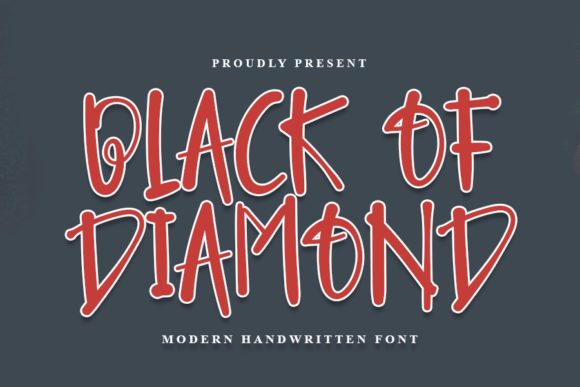
The Ultimate Guide to Black Of Diamond Font: Elevate Your Designs with a Fun Handwritten Style
Have you ever been in the middle of a design project, and suddenly, you’re stuck on finding the perfect font? I recall a recent experience where a client asked for a fun, handwritten font that would make their brand stand out. After scouring the internet, I stumbled upon the Black Of Diamond font, and it instantly became my go-to choice. In this article, I’ll share my journey with this fantastic font, its features, and how to make the most of it in various design platforms.
A Personal Encounter with Black Of Diamond
Working on a project for a children’s toy brand, I needed a font that was playful, yet elegant. The client was looking for a design that would appeal to both kids and parents. That’s when I discovered Black Of Diamond. This fun handwritten font has been a game-changer for my designs, and I’m excited to share its potential with you.
An Honest Review of Black Of Diamond
- ✨ Unique and Playful Style: Black Of Diamond offers a distinctive, cursive look that adds a touch of personality to any design.
- 💡 OpenType Features: Black Of Diamond supports OpenType features, allowing for advanced typographic control and customization.
While Black Of Diamond is an excellent font, there are a few things to keep in mind:
- 🤔 Limited Character Set: Some users might find the character set a bit limited for extensive text projects.
- ⚠️ Legibility at Small Sizes: Like many script fonts, Black Of Diamond may lose legibility when used at very small sizes.
The Story Behind Black Of Diamond
While the origins of Black Of Diamond are not well-documented, it’s clear that the designer aimed to create a fun, versatile font for creative projects. The unique blend of elegance and playfulness makes it an excellent choice for designers looking to add a personal touch to their work.
| Font Name | Black of Diamond Font |
| Author | NYA Letter |
Q: What type of projects is Black Of Diamond best suited for?
Black Of Diamond is perfect for creative projects, such as branding, invitations, posters, and social media graphics, where a playful yet elegant look is desired.
Q: Does Black Of Diamond support OpenType features?
Yes, Black Of Diamond supports OpenType features, offering advanced typographic control and customization options.
Q: Is Black Of Diamond suitable for body text?
While Black Of Diamond can be used for short paragraphs, it’s primarily designed for headlines and titles. Its legibility at small sizes may be limited.